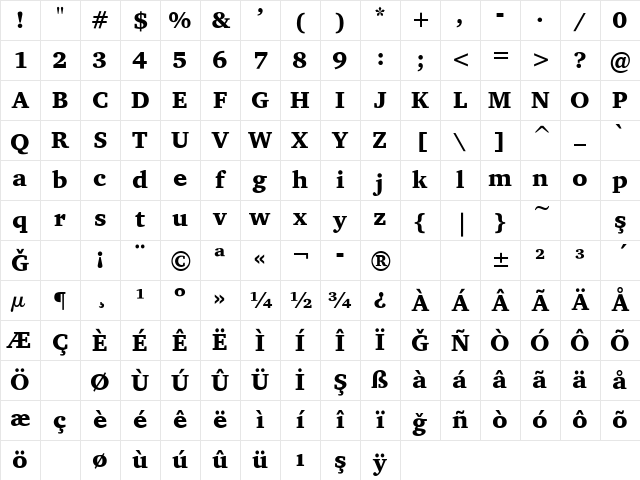
Bits_ Charter Bold
Bits_ Charter Family
Bits_ Charter Bold
Design Context for Bits_ Charter
Bits_ Charter is a composed and adaptable typeface that performs quietly and consistently across a wide range of design contexts. Its bold stroke weight gives it real presence on the page.
Pro Tip: Use Bits_ Charter in both headline and body roles to test its range before committing to a single application.